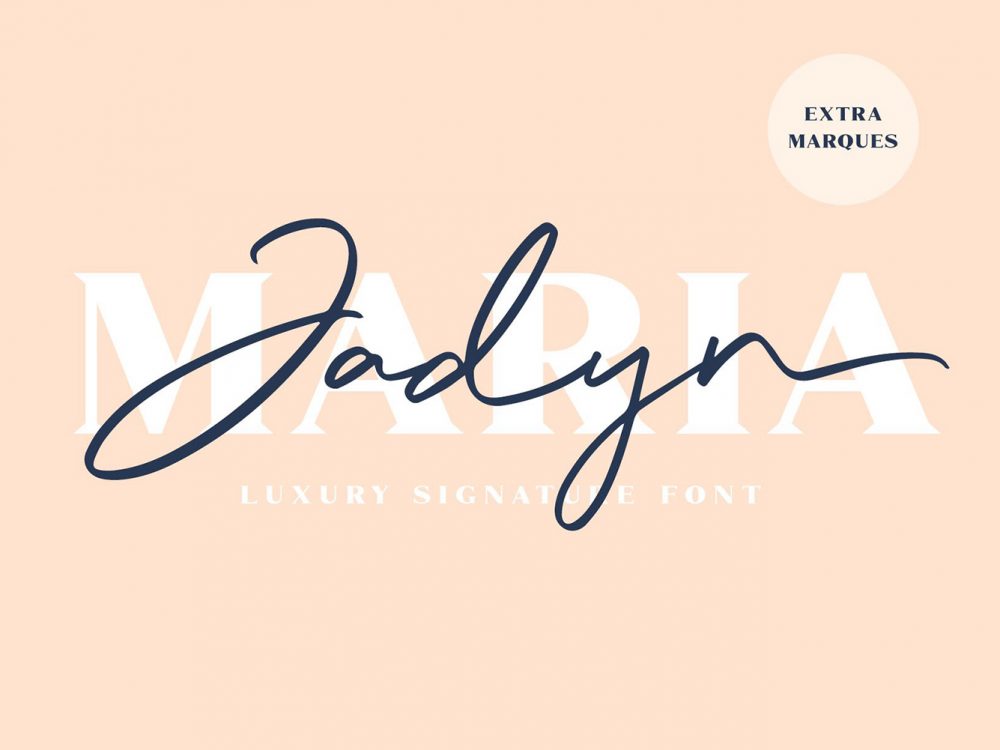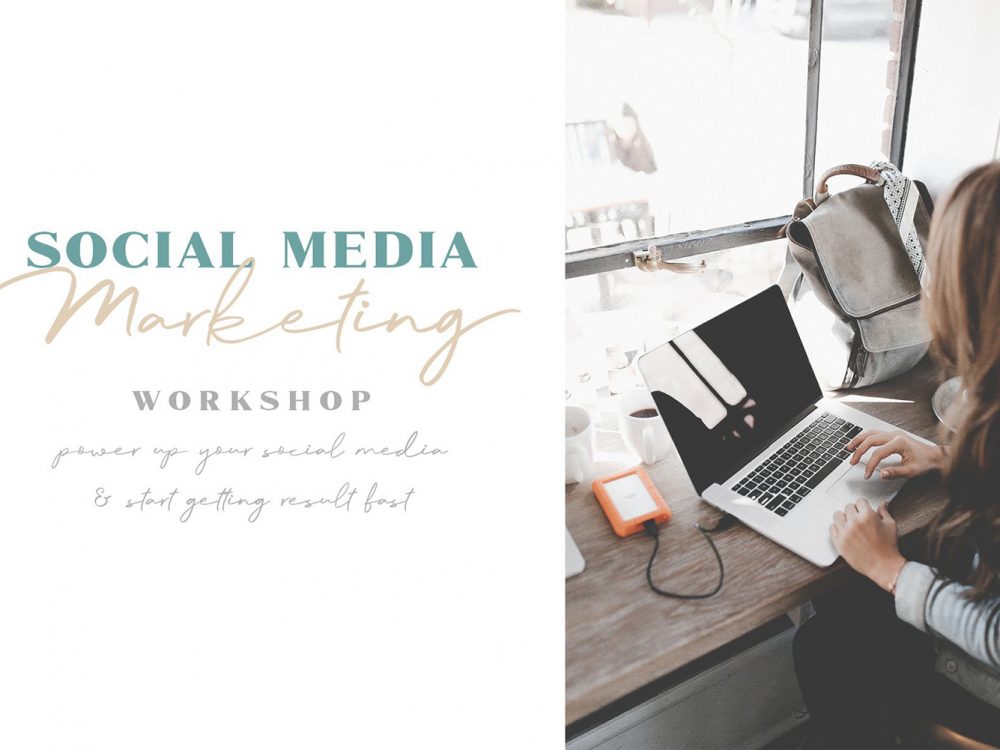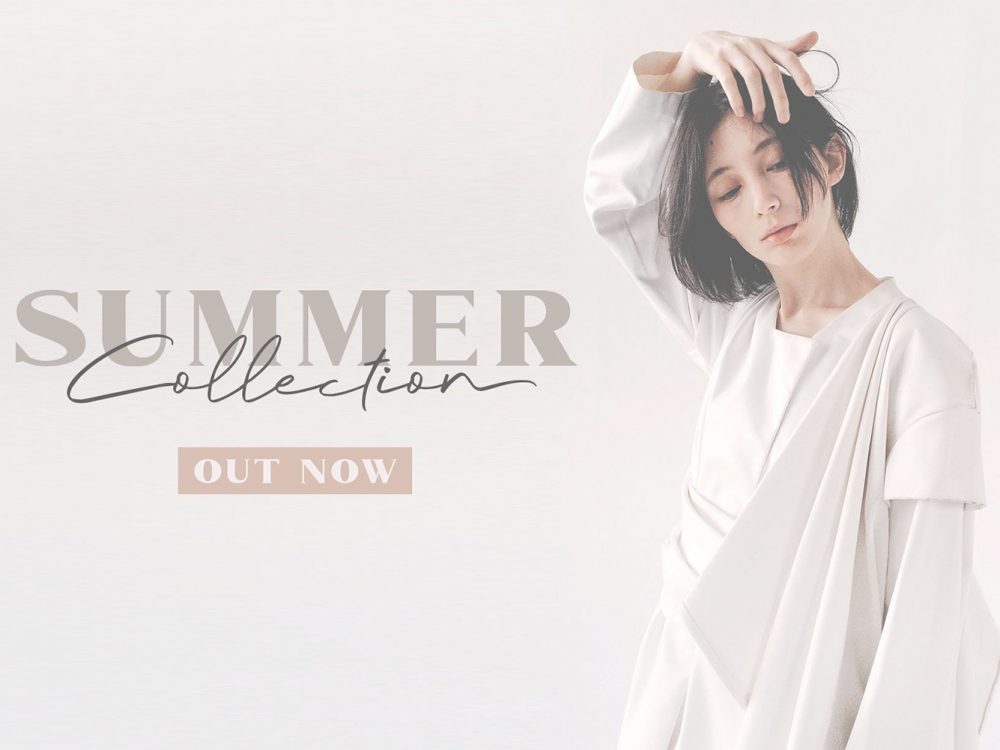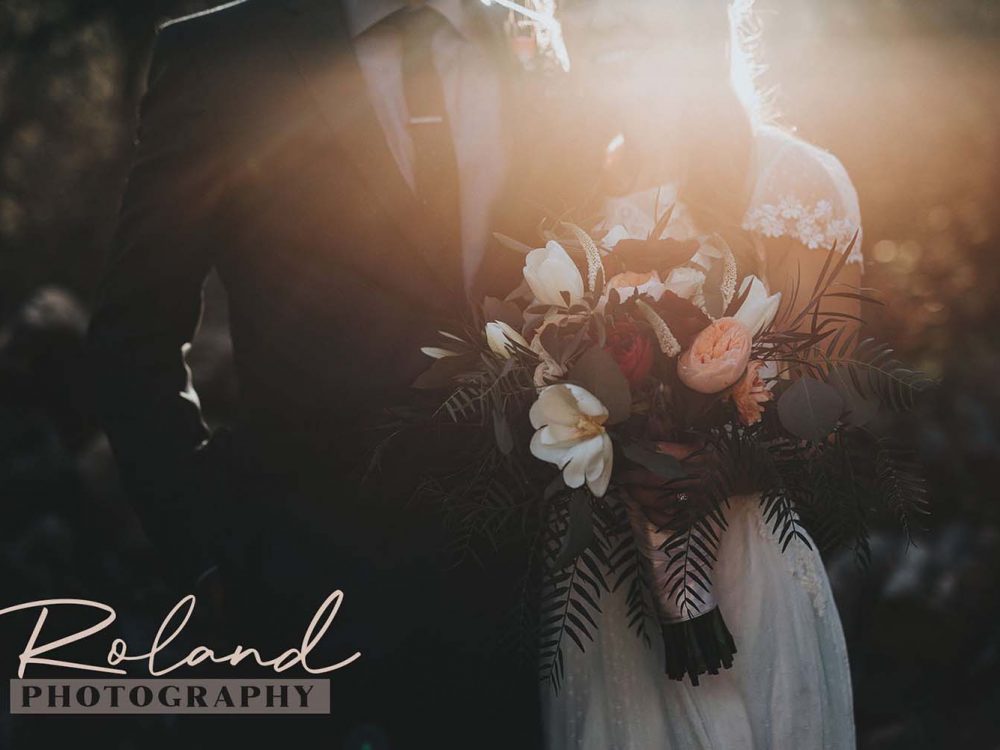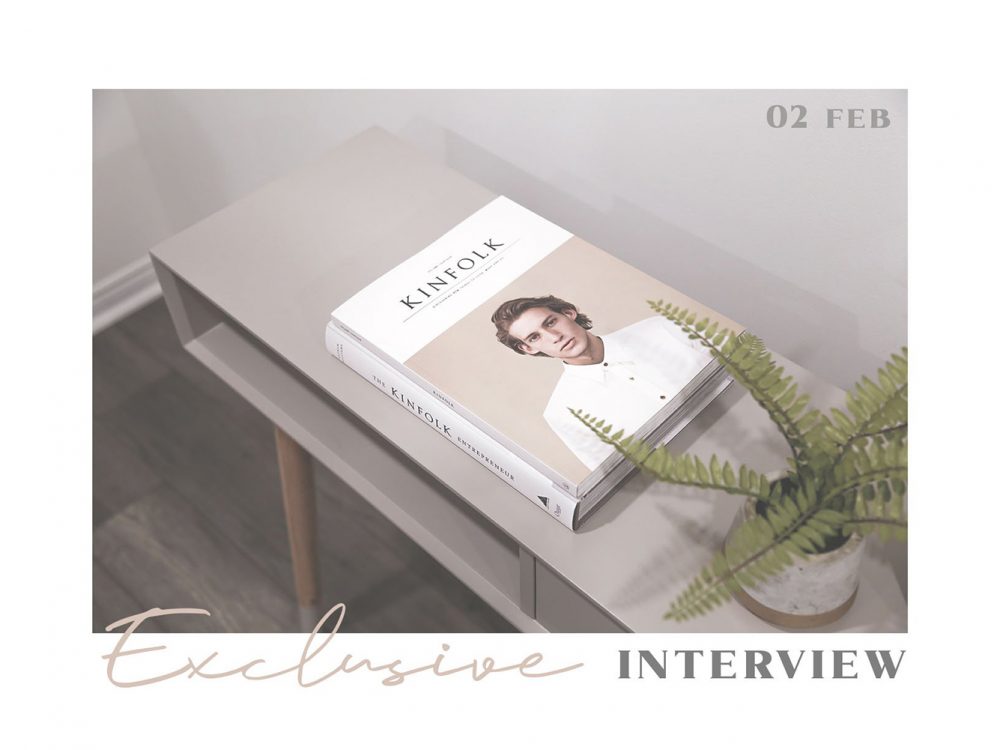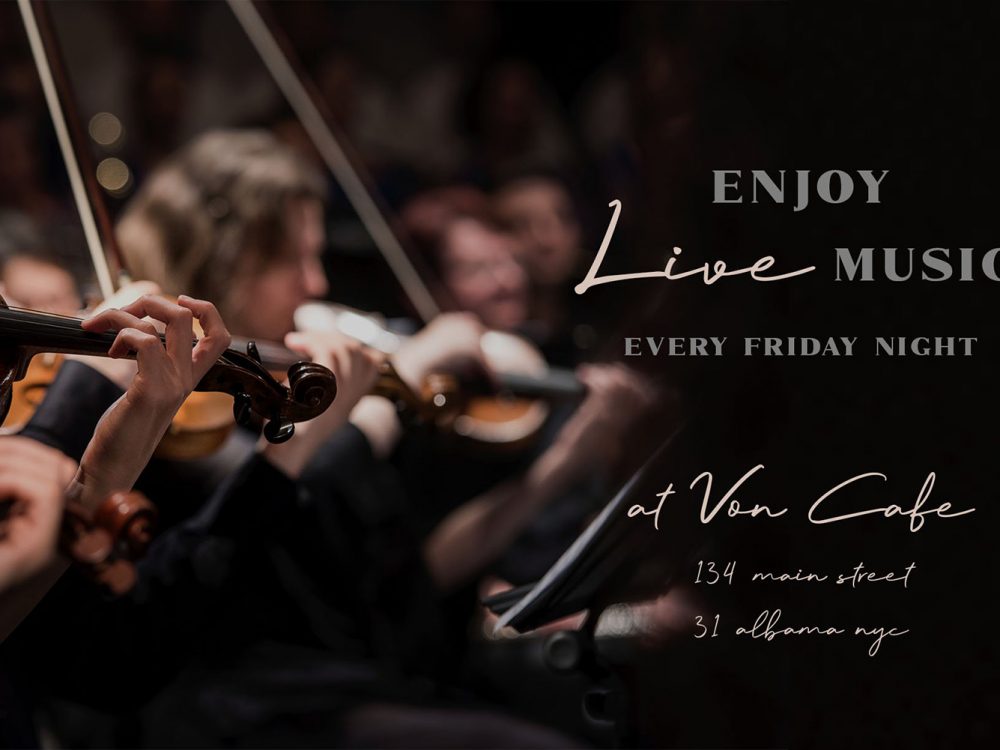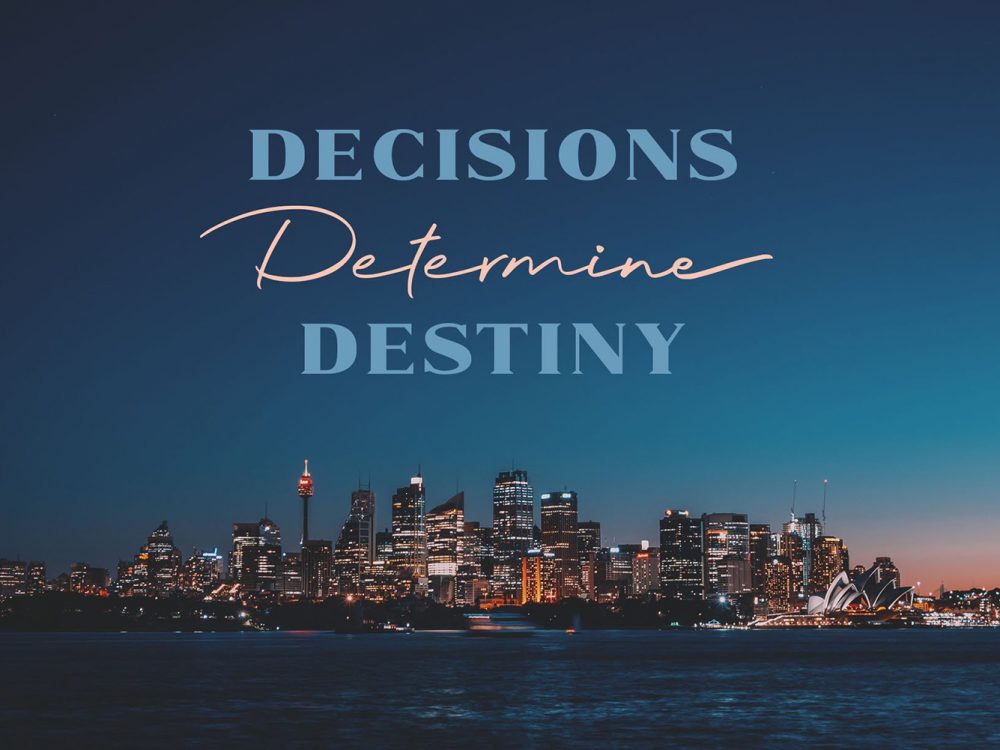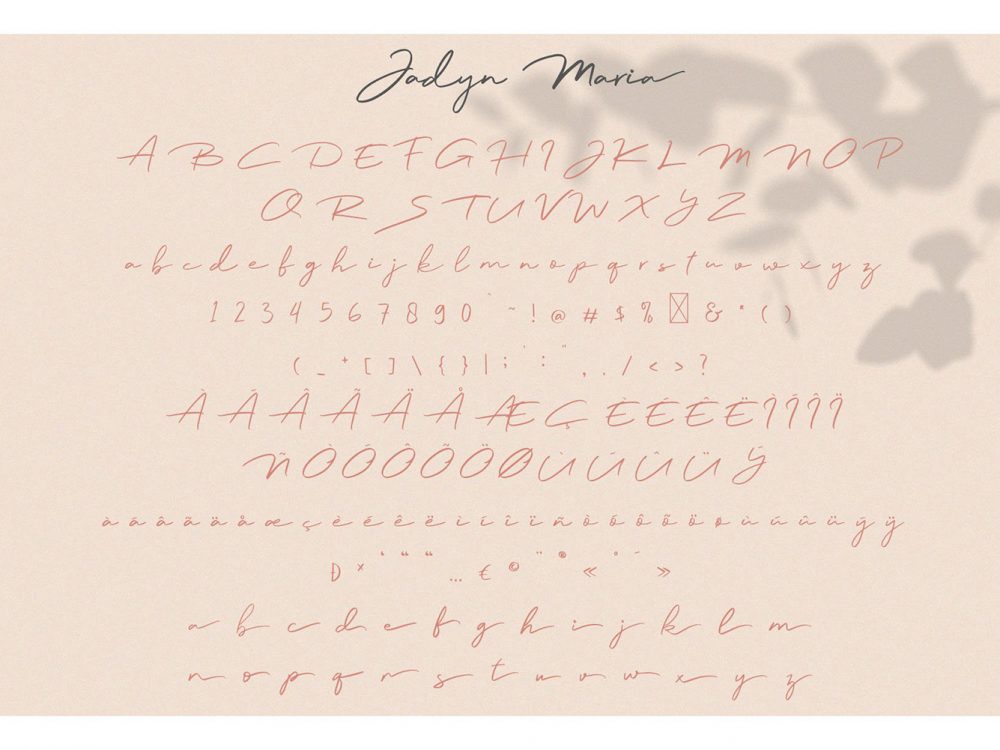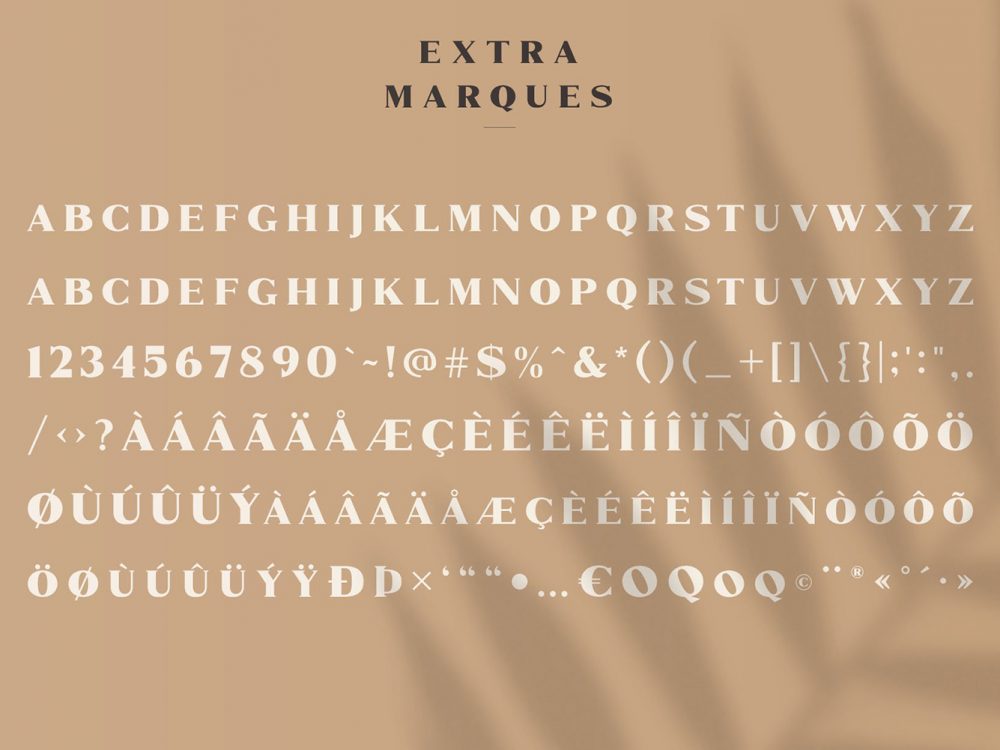
Jadyn Maria Luxury Font
Jadyn Maria Luxury Font is a beautiful and interesting handwritten font with an elegant style that is perfect for a variety of design projects that require a script font. Use this font to create posters, wedding invitations, cards, branding, flyers, prints, and more. If you wish to access more features and use them for commercial work please buy the full version.